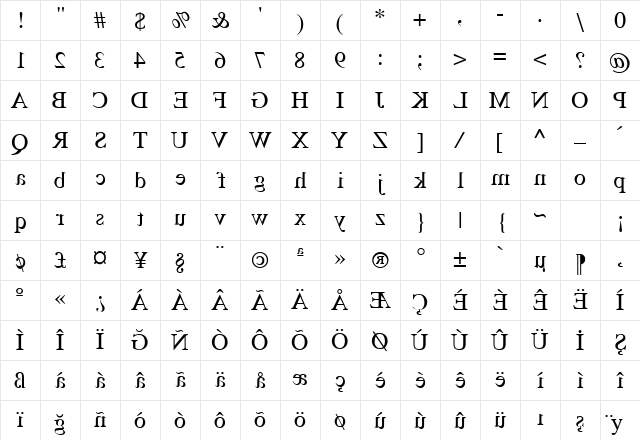
TimesMirror Regular Free Font
TimesMirror Regular
Design Context for TimesMirror
TimesMirror is a composed and adaptable typeface that performs quietly and consistently across a wide range of design contexts.